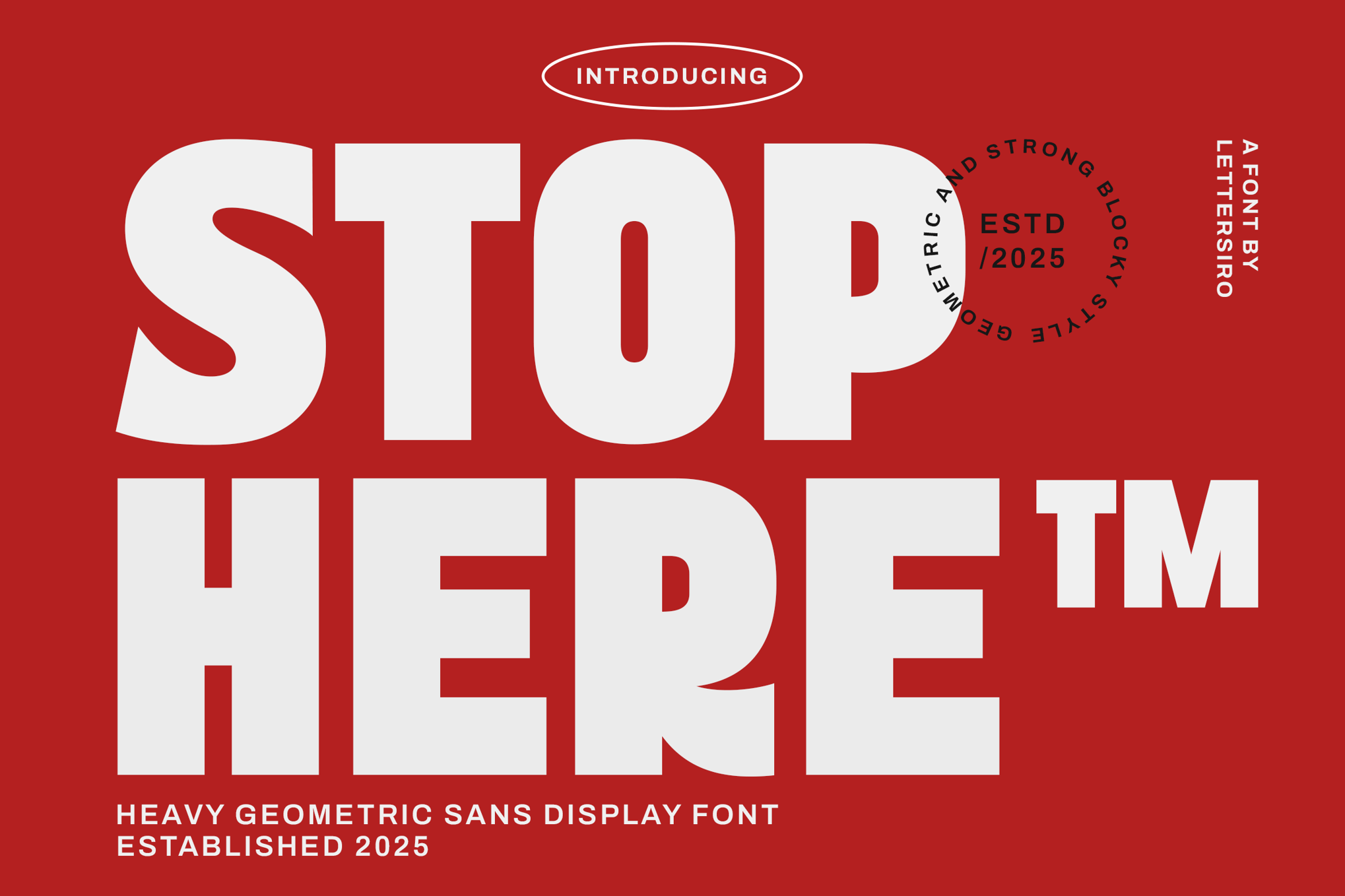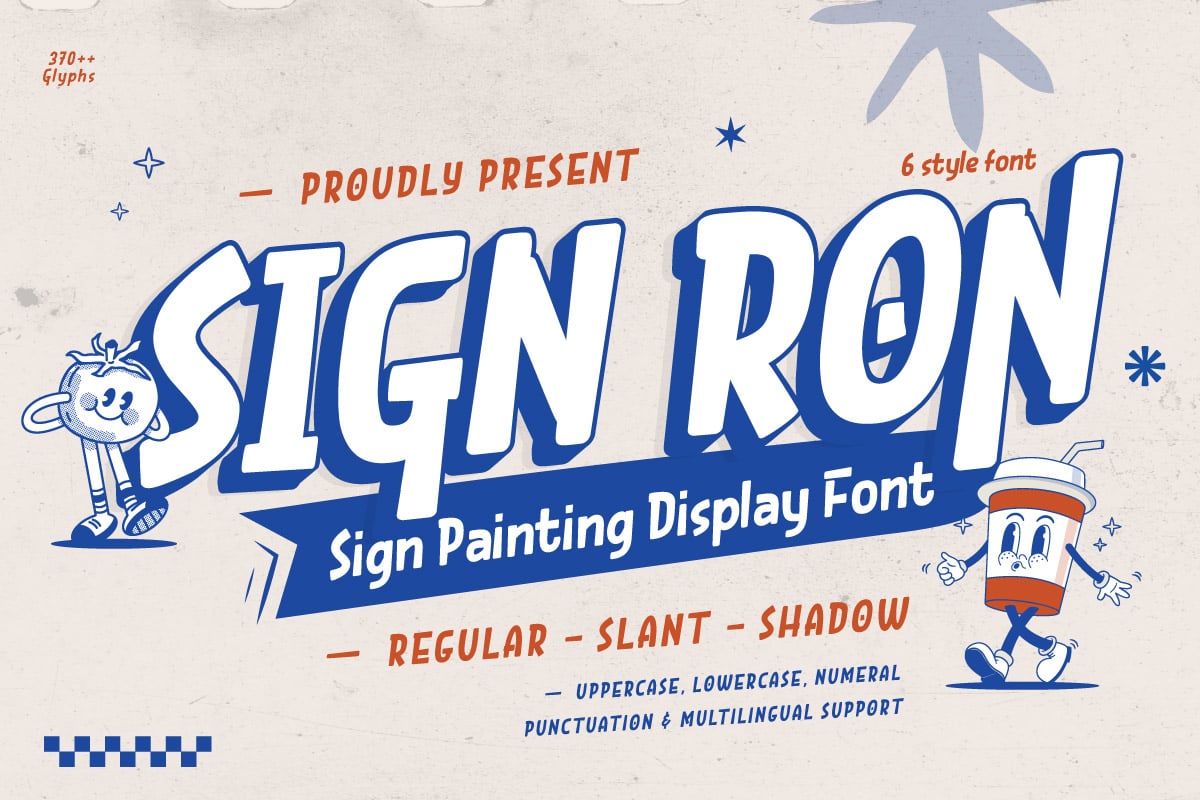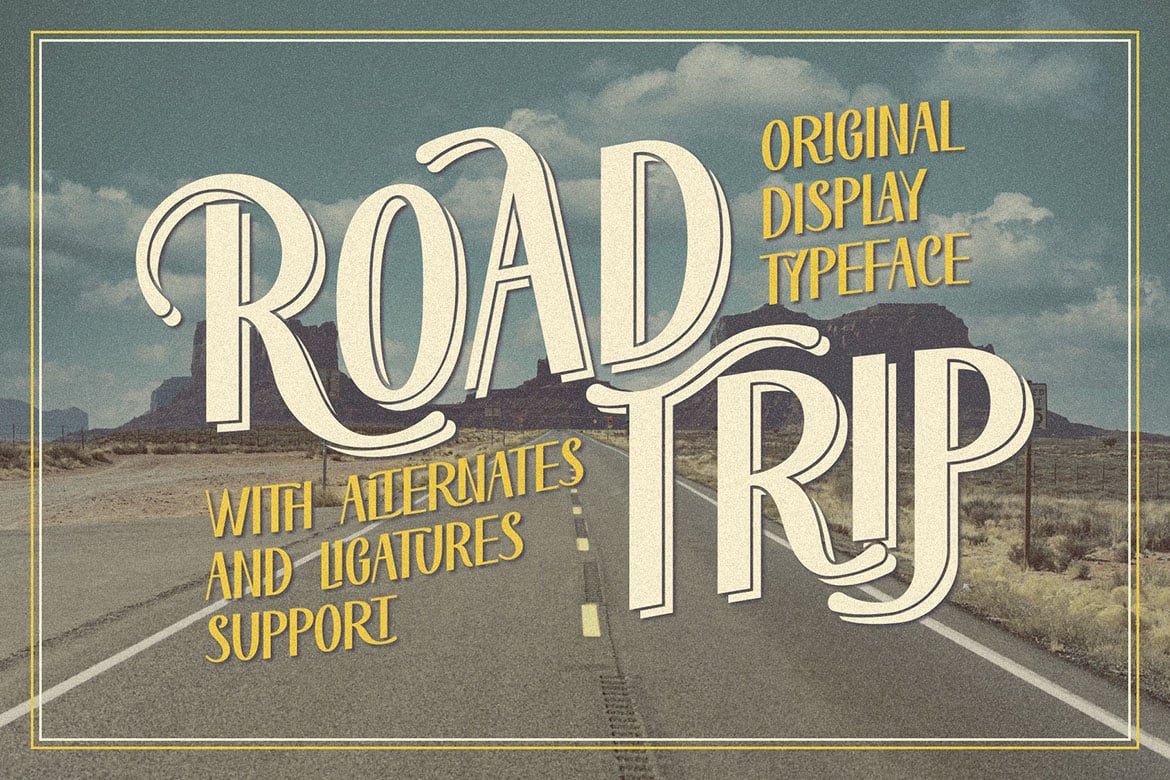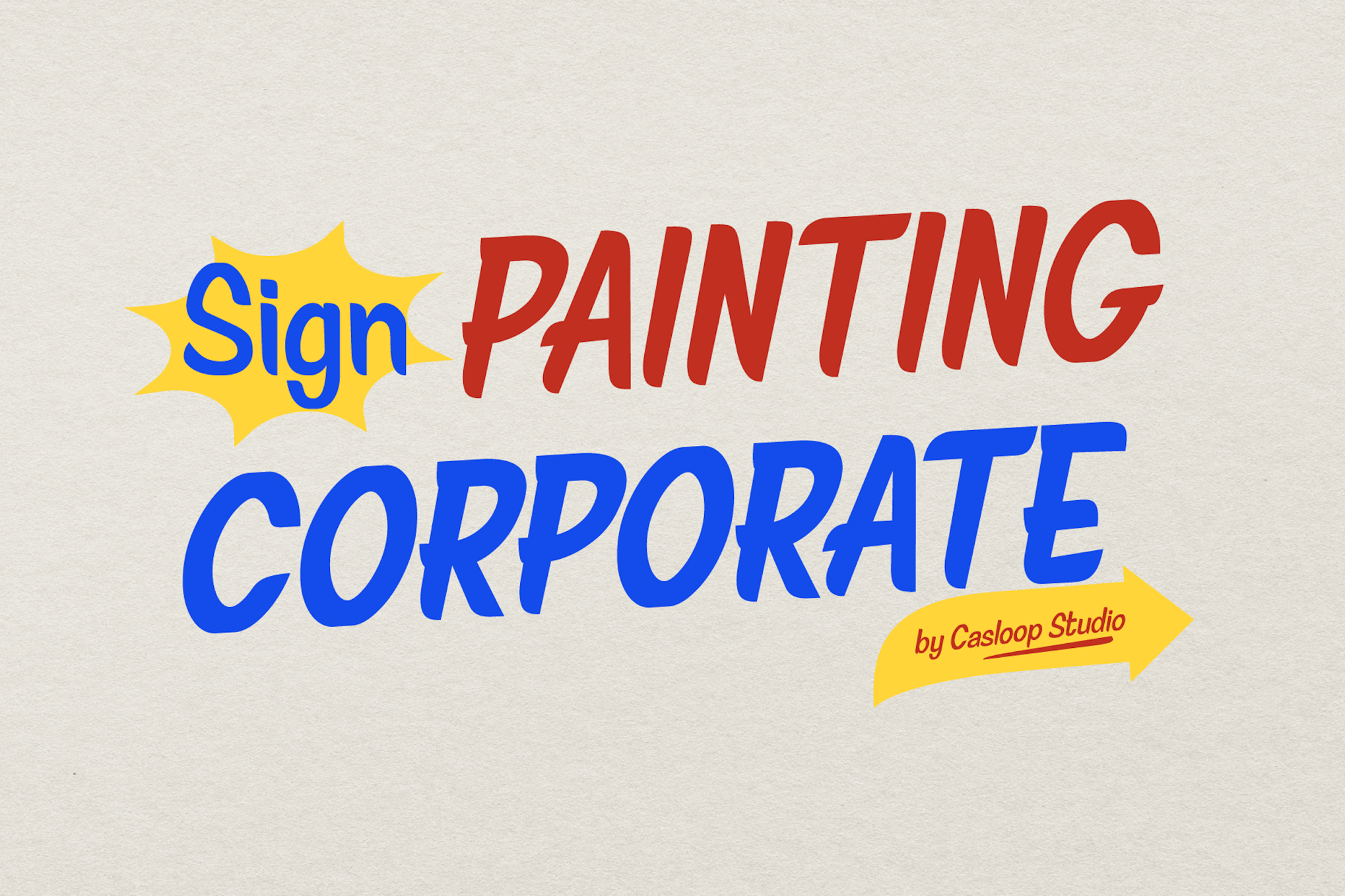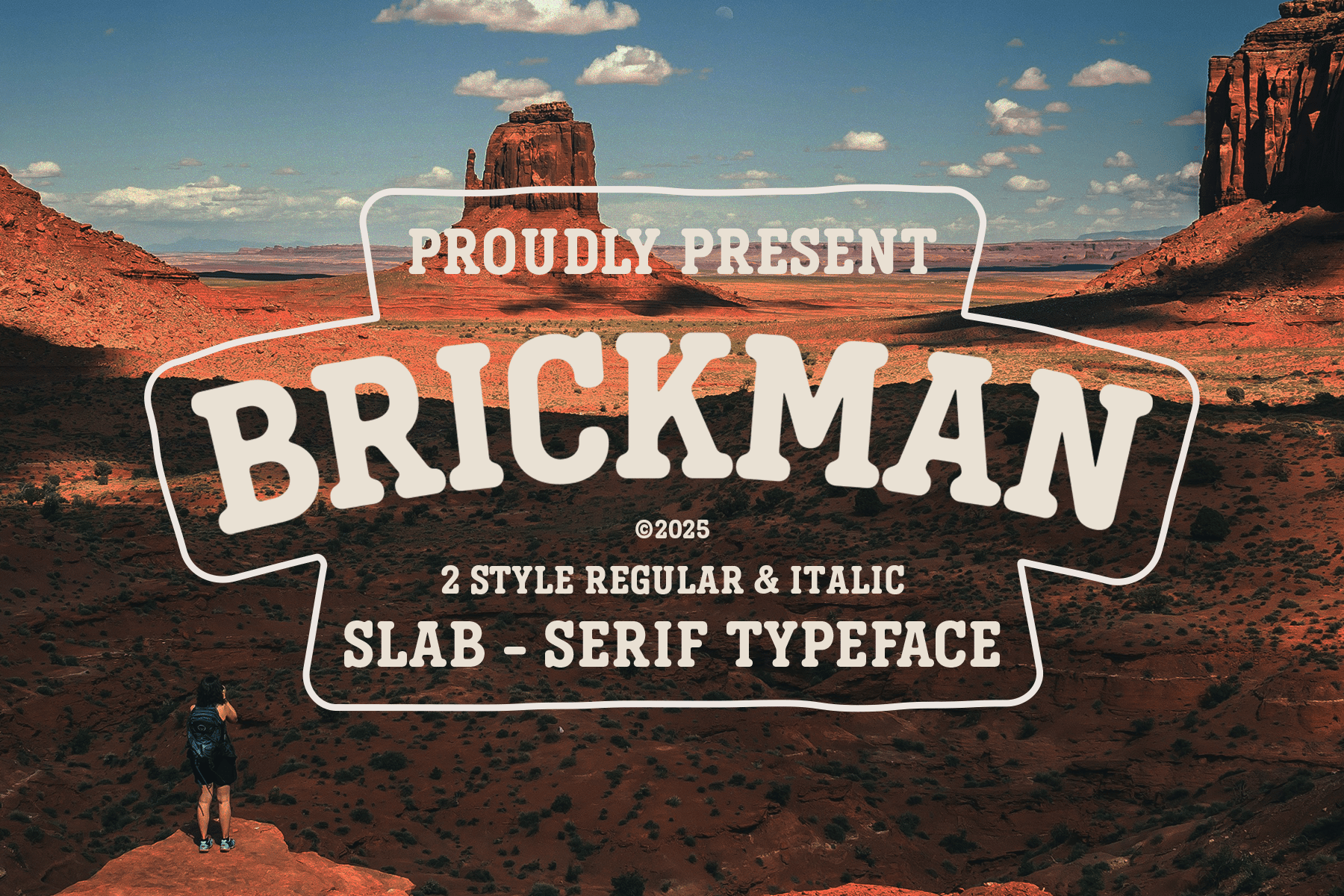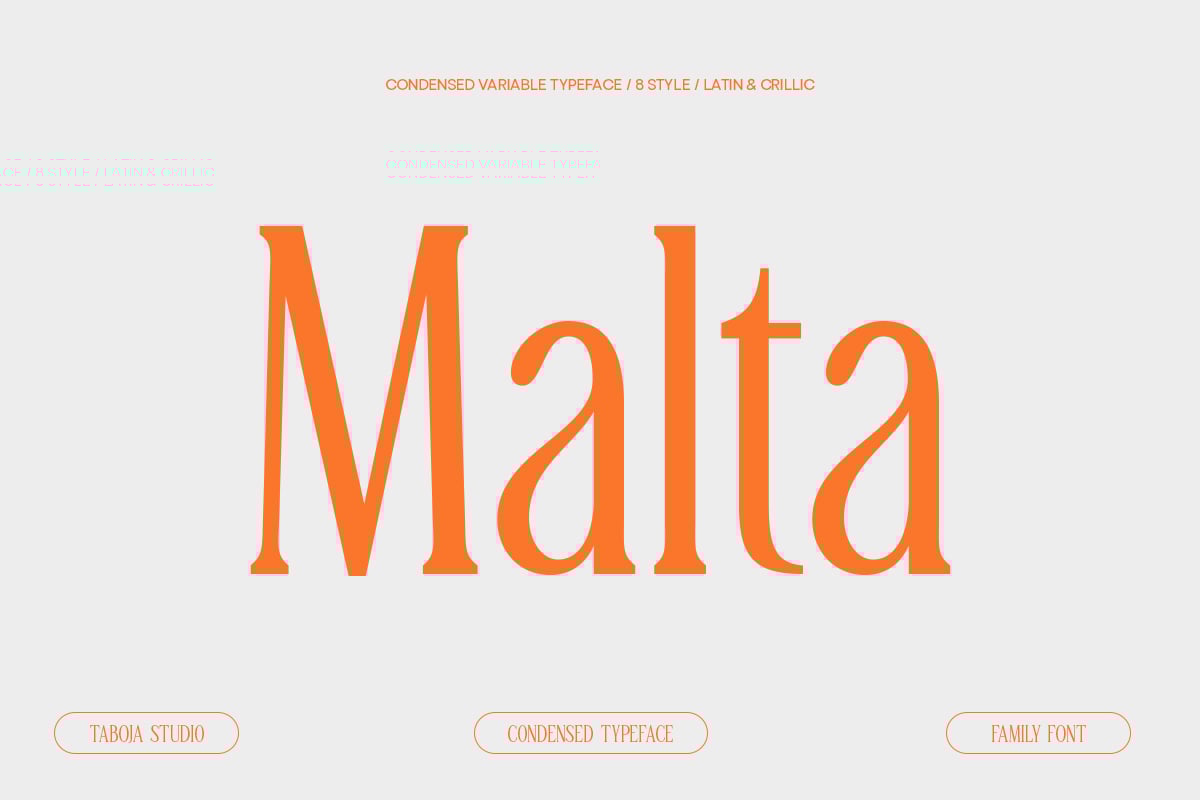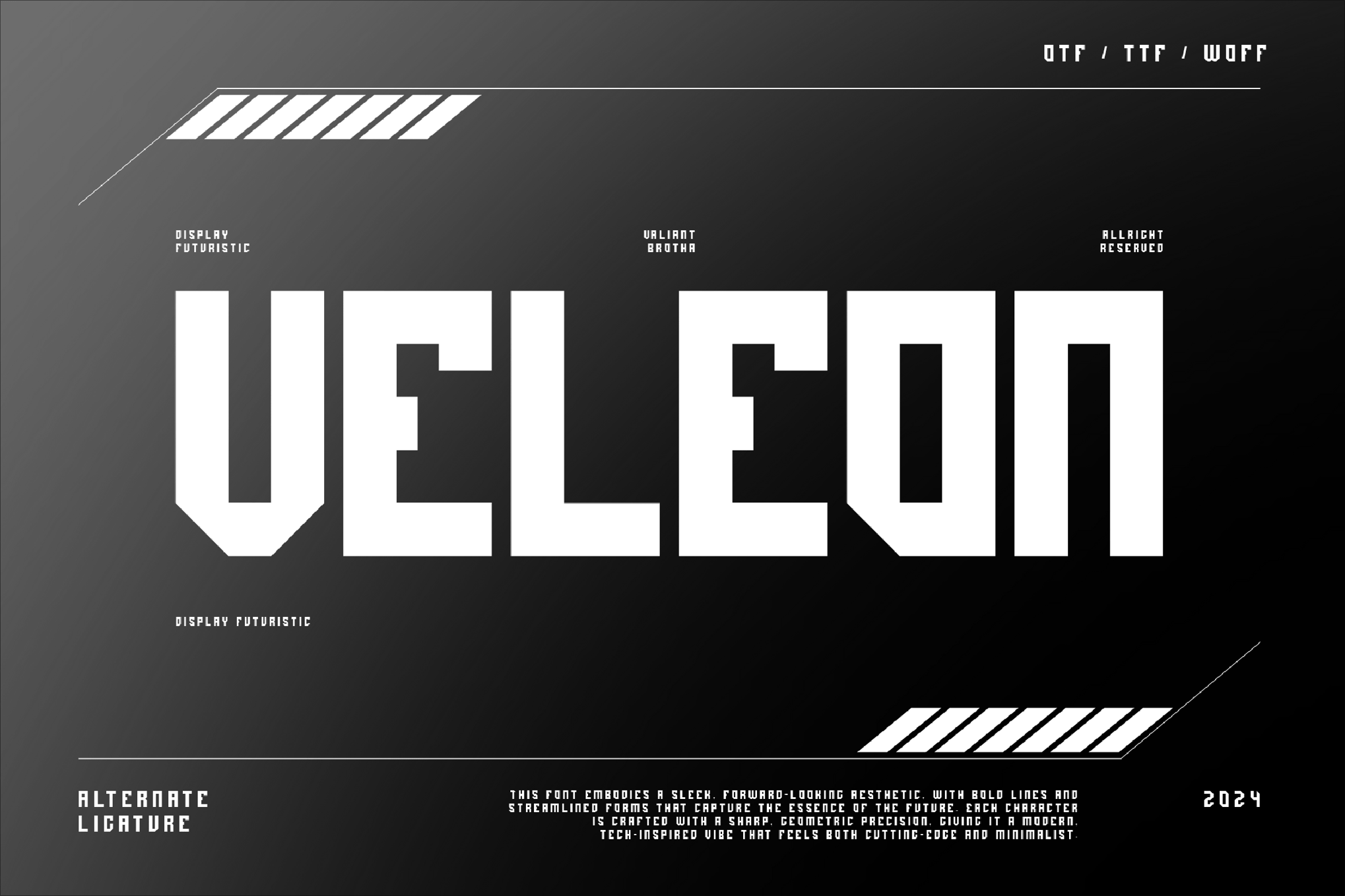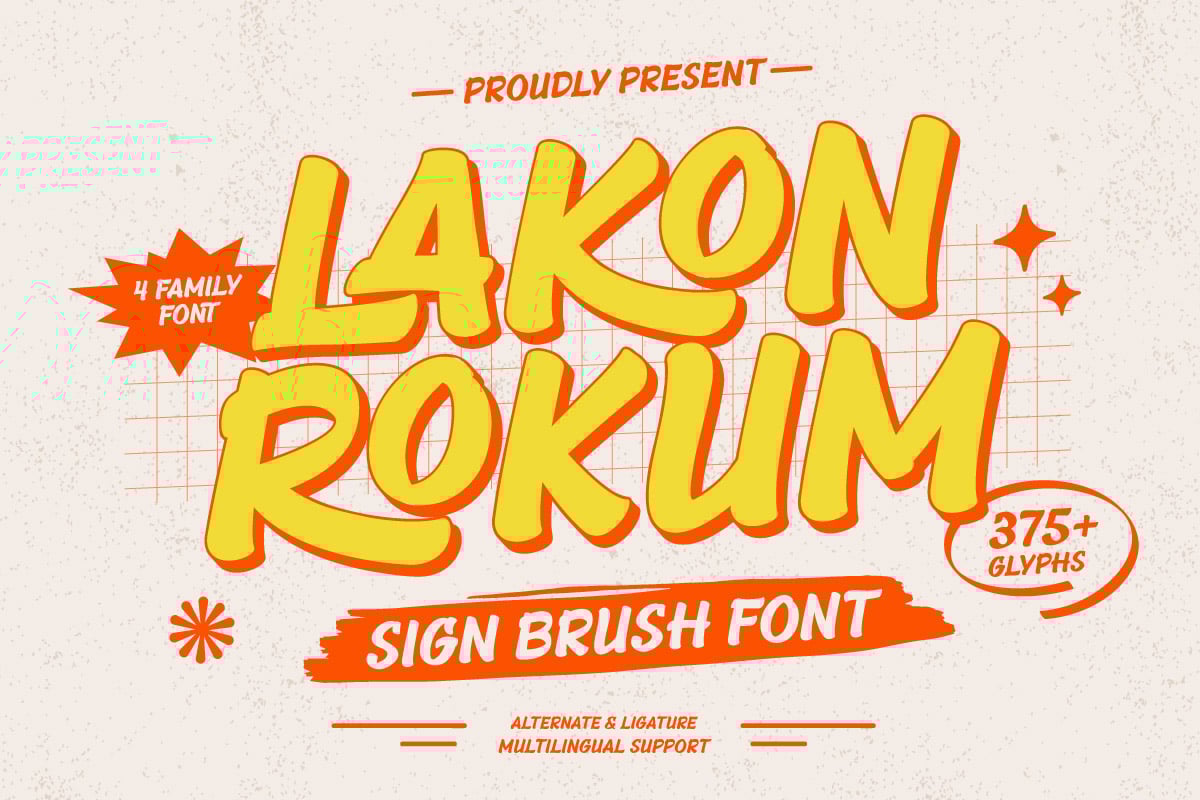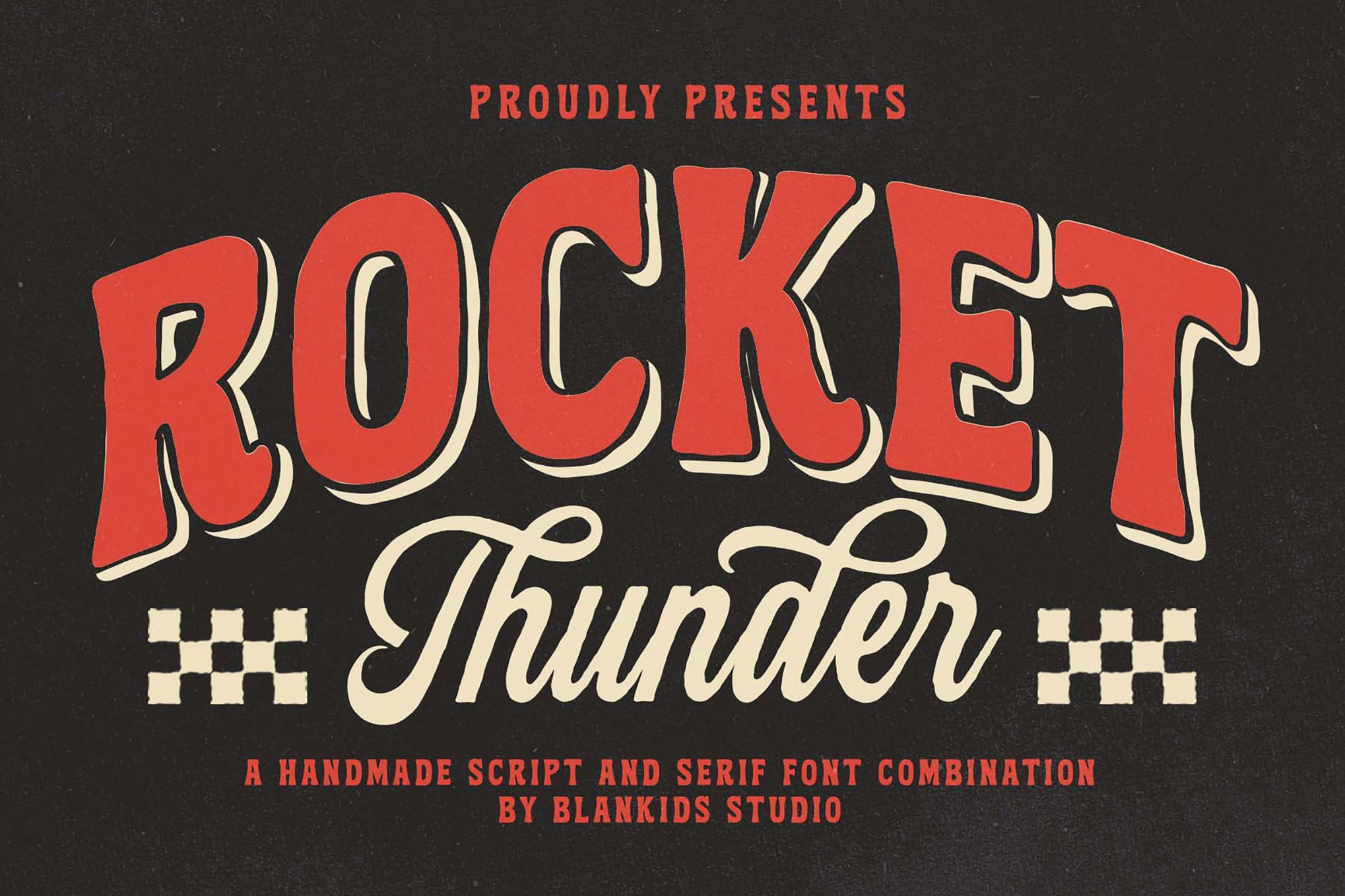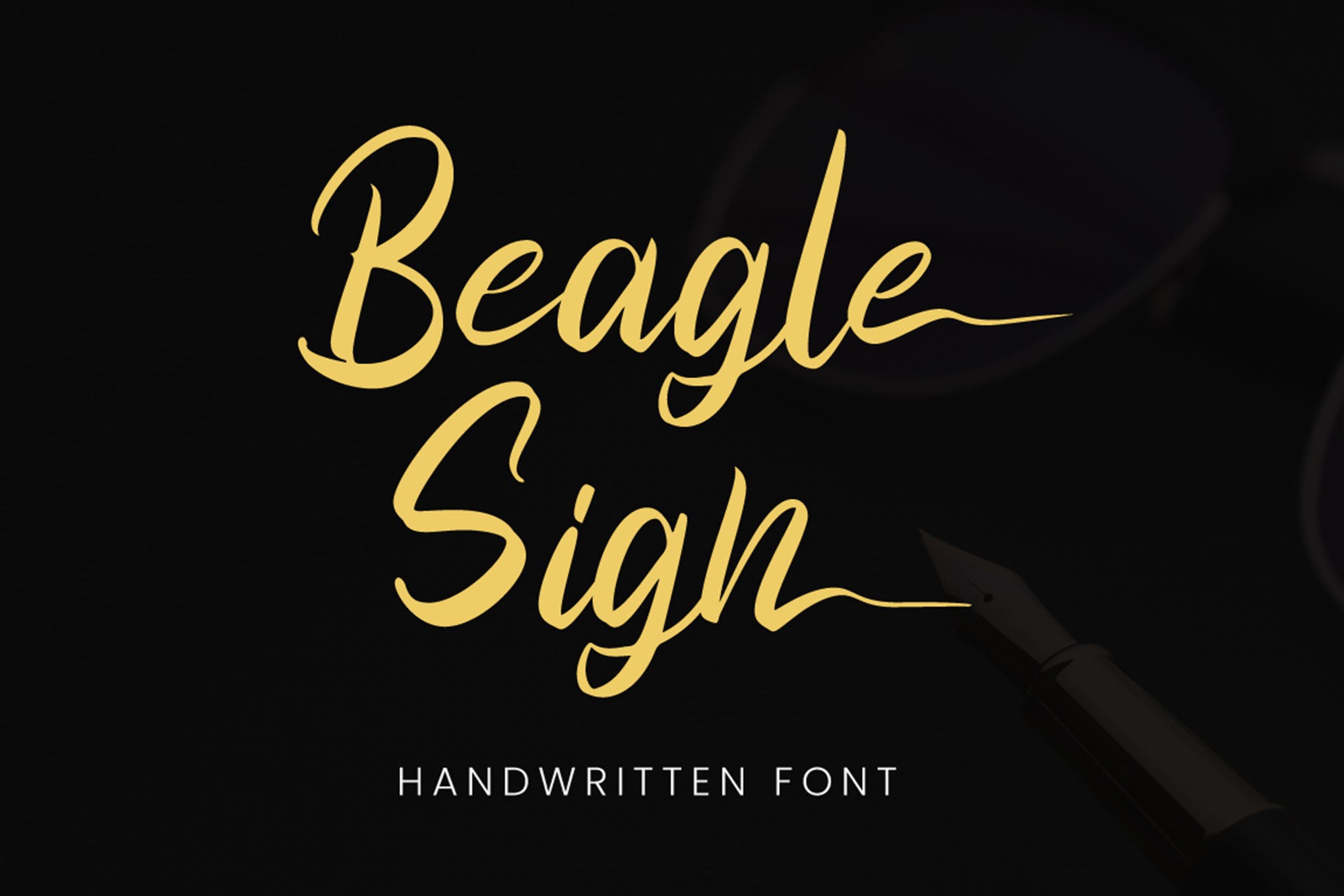
60+ Best Fonts for Signs
Whether you’re working on a sign design for a coffee shop or a luxury boutique, choosing the right font for your sign will go a long way to make your signage look more professional and unique.
When designing different types of signs, you are often forced to work with specific standards and font layouts. But, that doesn’t mean you can’t get creative and use unique fonts in your designs.
Finding a great font usually means spending hours scouring the web and getting disappointing results. To help you save time and find a creative and stylish font more quickly, we handpicked the best fonts for signs (for all kinds of businesses and shops), as well as a few helpful tips for designing signs!
San Marino – Urban Font Family
Designing trendy signage for urban shops and stores will get so much easier when you have this font in your arsenal. It features a trendy and clean design, making it appropriate for all kinds of brands from small businesses to luxury shops.
The font comes in 4 different font styles, including regular, outline, italic, and sans serif. It’s also an all-caps font.
Why This Is A Top Pick
The classic clean look of this font is what makes it stand out. The font is perfect for designing titles for signs that show off professionalism. The multilingual support is also an added bonus.
Stop Here – Bold Sign Font
Stop Here is a bold geometric sans serif font designed to create eye-catching visuals. It comes with a blocky hieroglyphic structure and modern edges that make it ideal for creating impactful posters, billboards, headers, product labels, or editorial layouts.
Sign Ron – Classic Signage Font
Sign Ron is a classic signage font boasting both vintage charm and bold craftsmanship. Infused with flexibility, it comes in four highly versatile styles: Regular, Slant, Shadow Regular, and Shadow Slant. Sign Ron is perfect for design projects that look for a hand-painted feel and a sign painter’s touch, like storefront signs, café menus, logo designs and event posters.
Road Trip – Retro Label Font
Road Trip is a distinctive, vintage-style font. Imbued with creativity and elegance, it comes in regular, shadow, and rough versions. Perfect for vintage and retro branding projects, it supports multiple languages, 53 ligatures, and 49 alternate options, enriching your designs.
Sign Painting Corporate – Retro Font
Sign Painting font takes you back to the vibrant era of 60s-80s hand-painted signage, marrying the bold charm of vintage storefront lettering with the practical requirements of today’s visuals. The font provides a playful, rounded sans; an energetic, hand-painted touch; and a strong, warm commercial presence.
Brickman – Bold Slab Serif Font
Brickman is a creative slab serif font that seamlessly merges the classic and contemporary. With inspiration drawn from the Wild West, vintage signage, and circus posters, it features uniquely solid letterforms and subtly rounded endings. It’s available in both Regular and Italic styles, with a full set of glyphs included.
Red Kindred – Modern Sign Painting Font
Red Kindred is a modern sign painting font that blends elements from Art Nouveau and psychedelic culture, crafting a unique retro flavor. Featuring uppercase, lowercase, alternates, ligatures, numerals, punctuation, and accented characters, this font is designed to automatically adapt to your design’s layout.
Malta – Modern Font Family
Malta is a stylish serif typeface that elegantly mixes traditional charm with a fresh, contemporary style. Comprising of nine variants, it assures readiness for any design need. A great fit for both print and digital use, it ensures optimal reading comfort for long and short texts.
Veleon – Futuristic Sign Font
Veleon is a high-tech, futuristic font that brings modern typography to another level. Veleon’s sleek interface, intricate geometric shapes, and clean lines make it an ideal choice for future-focused branding, interface designs, logos, and sci-fi visuals.
Lakon Rokum – Sign Brush Font
Lakon Rokum is a vibrant sign brush font reminiscent of classic sign painting and handmade shop lettering. It features four versatile styles, including Regular, Slant, Shadow, and Shadow Slant. The font colorfully portrays the raw energy of brush calligraphy and is filled with depth and dimension, making it ideal for designs with a strong, genuine character, such as branding or promotional packaging.
Rocket Thunder – Signage Font Duo
Rocket Thunder is a dynamic and versatile handmade font duo. It’s perfect for branding, watermarks, product packaging, and other professional projects requiring a touch of vintage flair. The set comes in script and serif styles, with a full range of uppercase, lowercase, numerals, and punctuation.
WS Lowen – Bold Font for Signs
WS Lowen is a modern, condensed sans serif font available in two attention-grabbing styles: regular and rounded. Designed for optimal visibility in display typeface, both styles feature a clean, bold design, ensuring excellent legibility, even in smaller sizes. This font is an excellent choice for designers seeking a high-impact font for signage.
Depending on the type of sign you’re making, you can also find inspiration in current trends to make it stand out from the crowd. For example, one of the most popular trends in shop signs is using retro and vintage badge-style designs.
Trends are popular for a reason, so why not use them to your advantage.